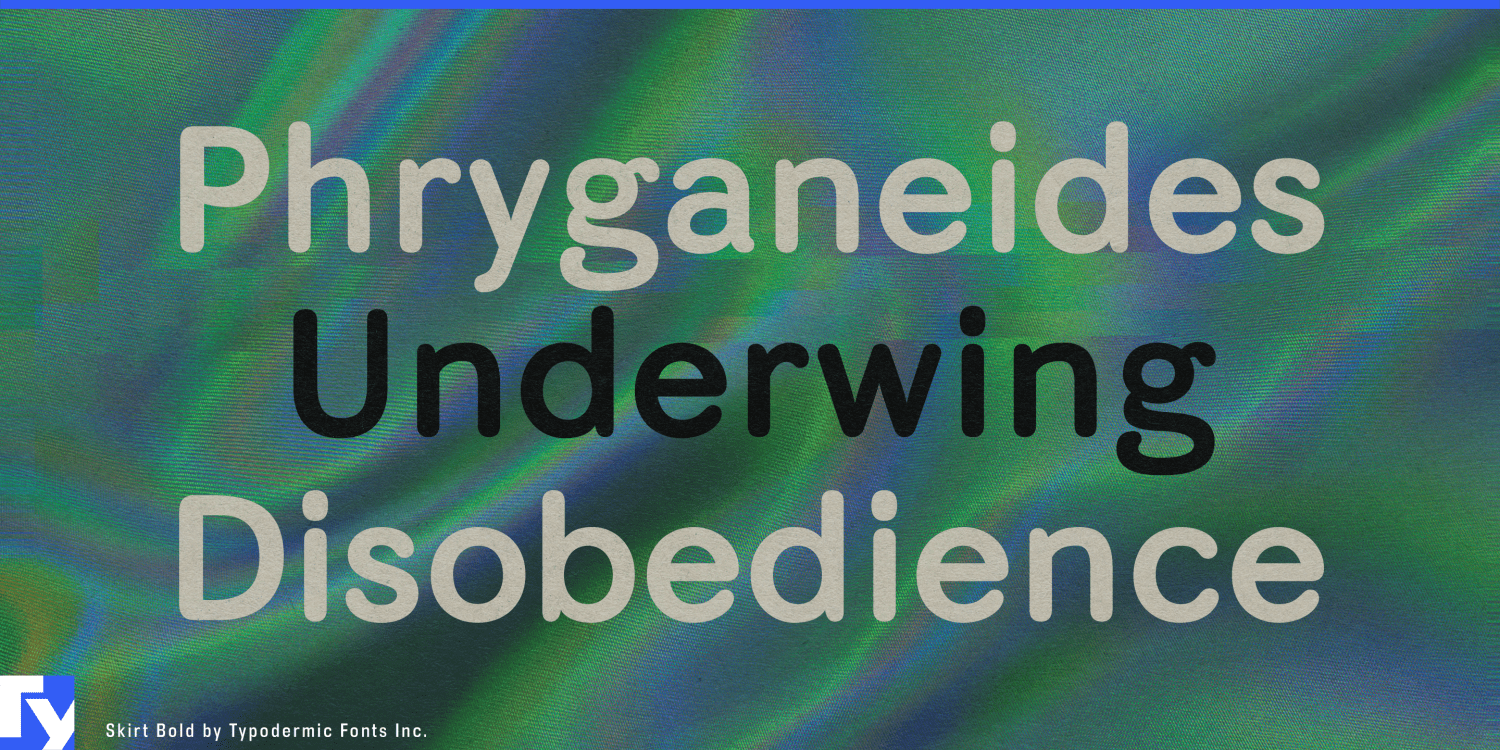
About Skirt
Prepare to be charmed by Skirt, a rounded sans-serif typeface that doesn’t just communicate—it dances across the page with effortless grace. This is a celebration of form, a typographic pirouette that brings a touch of playful sophistication…